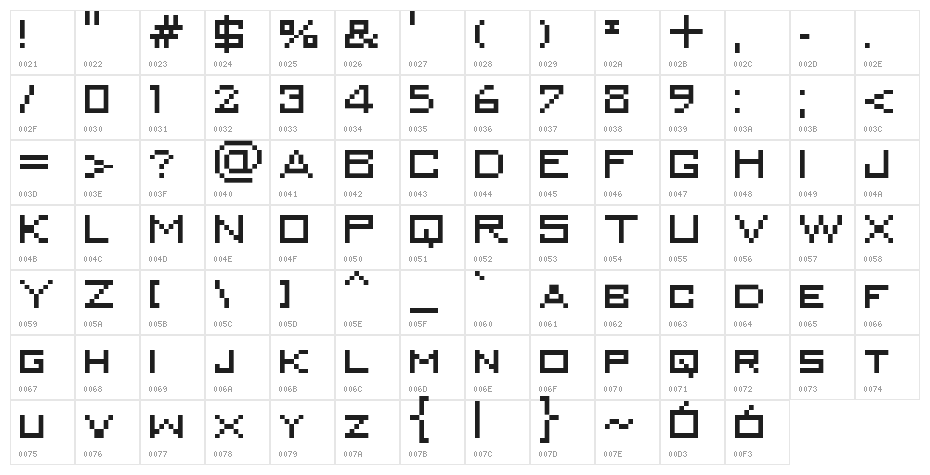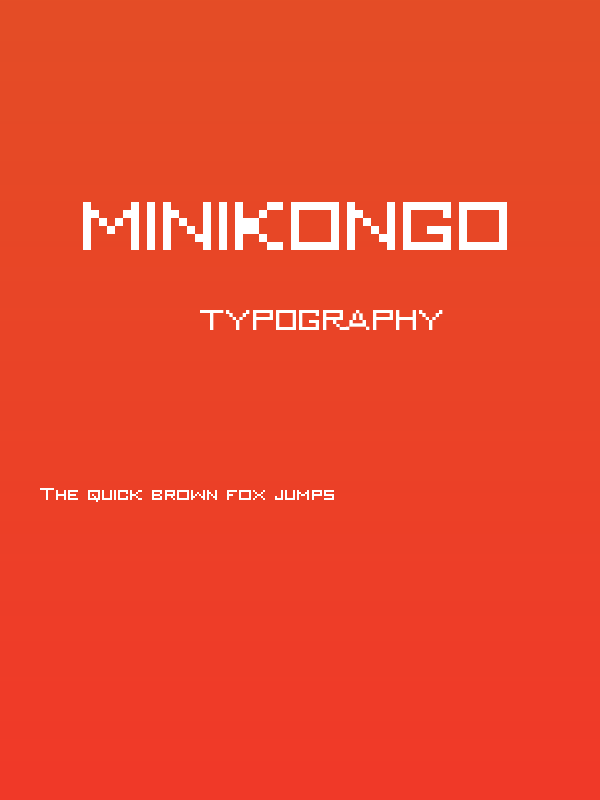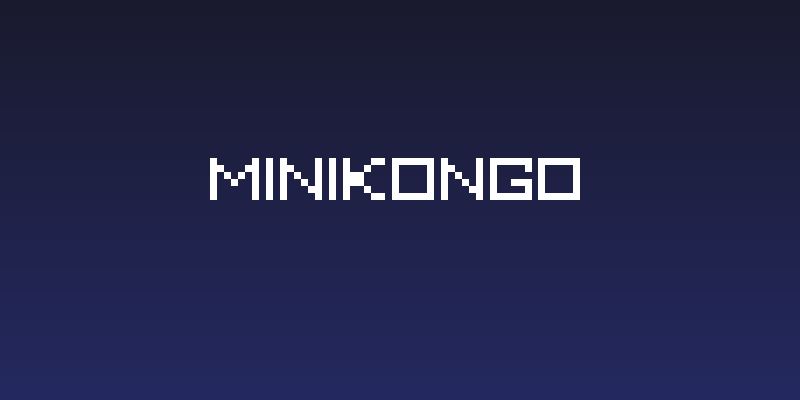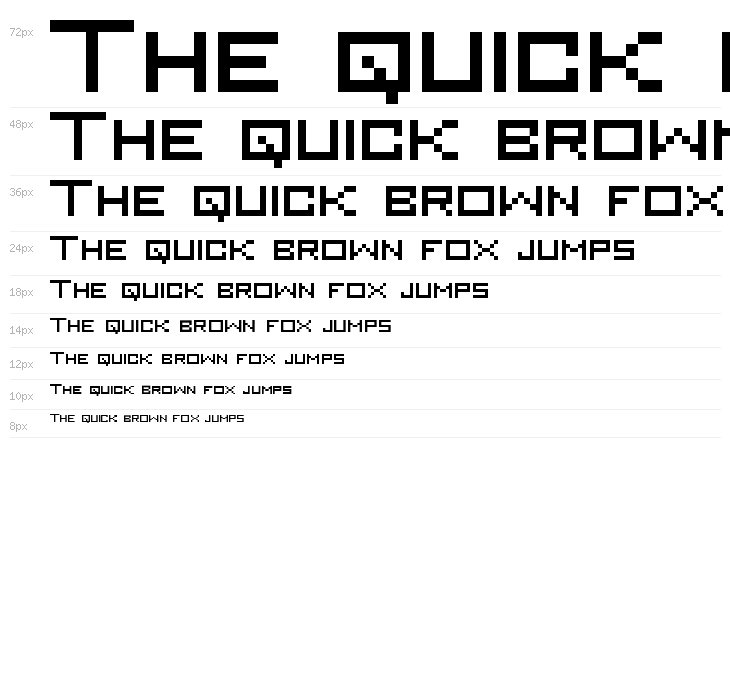
MiniKongo Font
MiniKongo Description
This font features a pixelated, blocky design reminiscent of early digital displays and video games. Each character is constructed with a grid-like precision, giving it a retro, 8-bit aesthetic. The uppercase and lowercase letters maintain a consistent height, with sharp angles and straight lines dominating the design. Numbers and special characters follow the same stylistic approach, ensuring uniformity across the font. The overall appearance is bold and striking, making it ideal for projects that require a nostalgic or tech-inspired look.
| Overall Style | Retro |
| Proposed Projects | Ideal for video game design, retro-themed posters, digital art, and tech-related branding. |